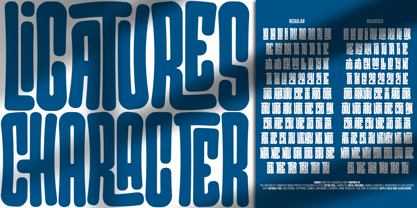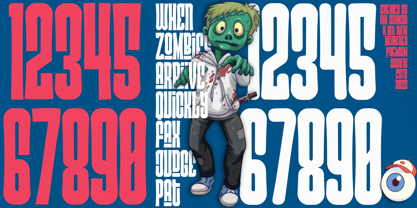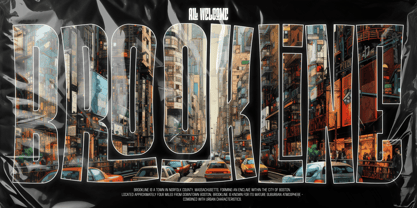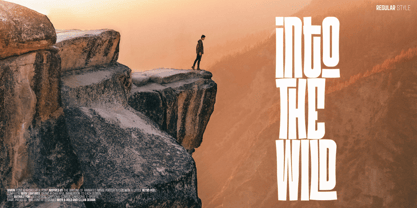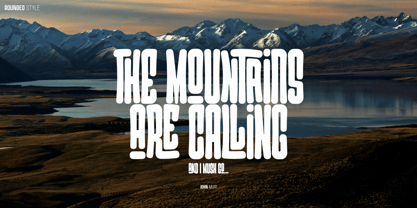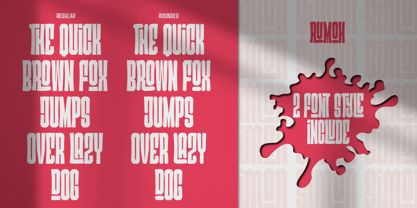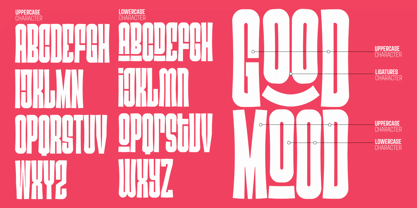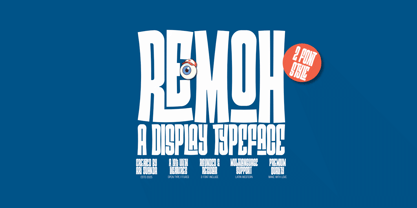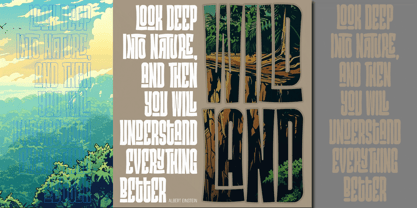
Remoh
by Linecreative
The Remoh Font Family was designed by Ari Juanda and published by Linecreative. Remoh contains 2 styles and family package options. More about this family
Introducing Rumoh regular and Rumoh rounded fonts are cheerful fonts font inspired by the writing of animated movie poster titles with a little retro feel, complete with ligatures, giving a cheerful impression to each design.
Very suitable for logo design, captions, comics, cartoons, e-sports, game projects. This font is designed with a bold and clean design.